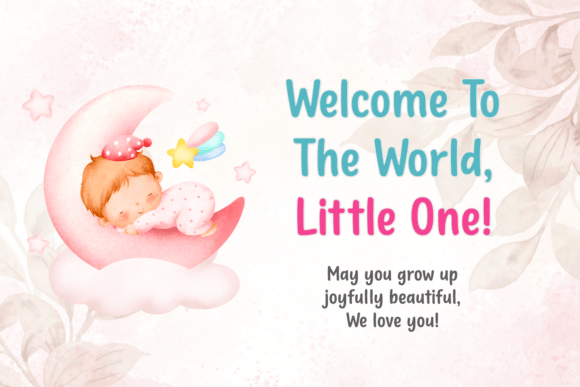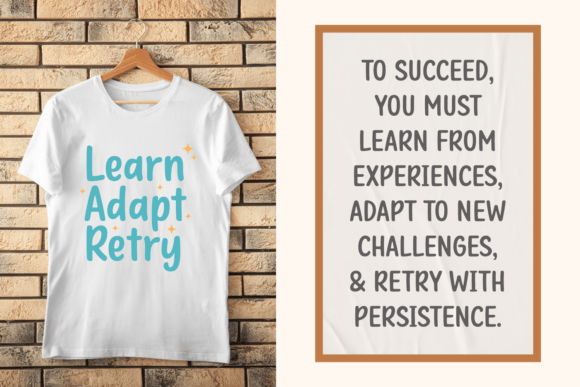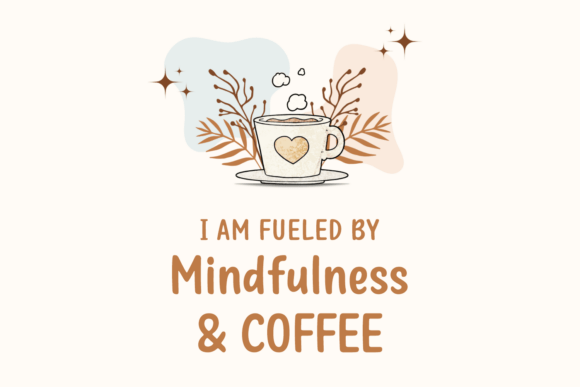
The Perfect Font for Little Heroes: Unveiling the Baby Hero Font
As a designer, have you ever stared at a blank page, searching for the perfect font to convey the joy and innocence of a child’s laughter? That’s exactly what happened to me when I stumbled upon the Baby Hero Font, a delightful and playful typeface that brings a smile to your face. With its handcrafted appearance, rounded edges, and varied sizes, this font is a breath of fresh air in the world of typography.
Designed with children in mind, the Baby Hero Font is the perfect tool for designers looking to create engaging content that’s both fun and educational. Its unique charm and approachable style make it ideal for a wide range of applications, from children’s books and party invitations to social media graphics and personalized gifts.
Baby Hero Font Key Features
- Font Family: A unique, custom-designed font specifically created for baby-related content, offering a cute and playful aesthetic.
- Unique Characteristics: Features hand-drawn illustrations and subtle textures, giving it a distinctive, handmade feel that adds a touch of warmth and personality to baby-related content.
Baby Hero Font Review
Overall, I’m impressed with the playful and whimsical vibe of the Baby Hero Font. ✨ It’s perfect for creating a nursery or kid-friendly design that exudes warmth and friendliness. The font’s rounded edges and childlike features make it instantly recognizable and appealing.
Here are some of its standout features:
- Customizable: The font comes in a range of styles and weights, allowing you to tailor it to your design needs.
- Fun and playful: The font’s childlike features make it perfect for kid-related designs or nursery decor.
- Easy to read: Despite its playful nature, the font is still easy to read and understand.
- Limited versatility: While the font is great for kid-related designs, it may not be the best choice for more formal or professional projects.
- Not ideal for small text: Due to its rounded edges, the font can become difficult to read when used in small text sizes.
Overall, I think the Baby Hero Font is a great addition to any designer’s toolkit. It’s perfect for creating playful and whimsical designs that are sure to delight. With some careful consideration of its limitations, you can use this font to create truly memorable and engaging designs.
Tip: Use the Baby Hero Font for titles and headings to add a playful touch to your design.
Tip: Use the Baby Hero Font for custom illustrations and graphics to add a unique touch.
Tip: Use the Baby Hero Font for titles and headings to add a playful touch to your presentation or document.
The Baby Hero Font is perfect for:
- Baby shower invitations and decorations
- Children’s product packaging and branding
- Playful blog and social media content
Remember to use the Baby Hero Font in moderation to avoid overwhelming your design.
Alternatives to Baby Hero Font
Great Vibes Font is a playful, handwritten font that can be used for various purposes such as headings, titles, and even body text. It’s perfect for designs that need a touch of whimsy and personality. In comparison to Baby Hero Font, Great Vibes Font has a more relaxed and casual feel, making it suitable for a wider range of designs.
Carolyna Pro Font is a modern, elegant script font that can be used for high-end designs such as luxury branding, invitations, and wedding stationery. It’s ideal for designs that require sophistication and refinement. Unlike Baby Hero Font, Carolyna Pro Font has a more polished and refined look, making it perfect for formal events and high-end branding.